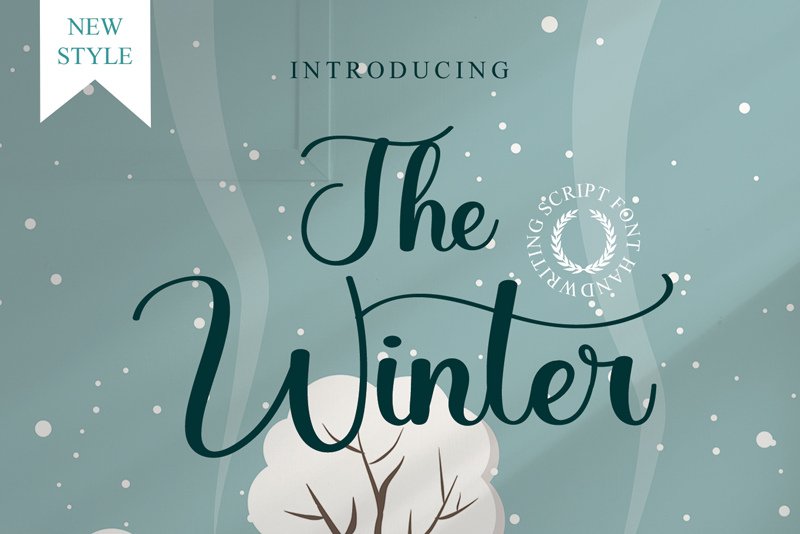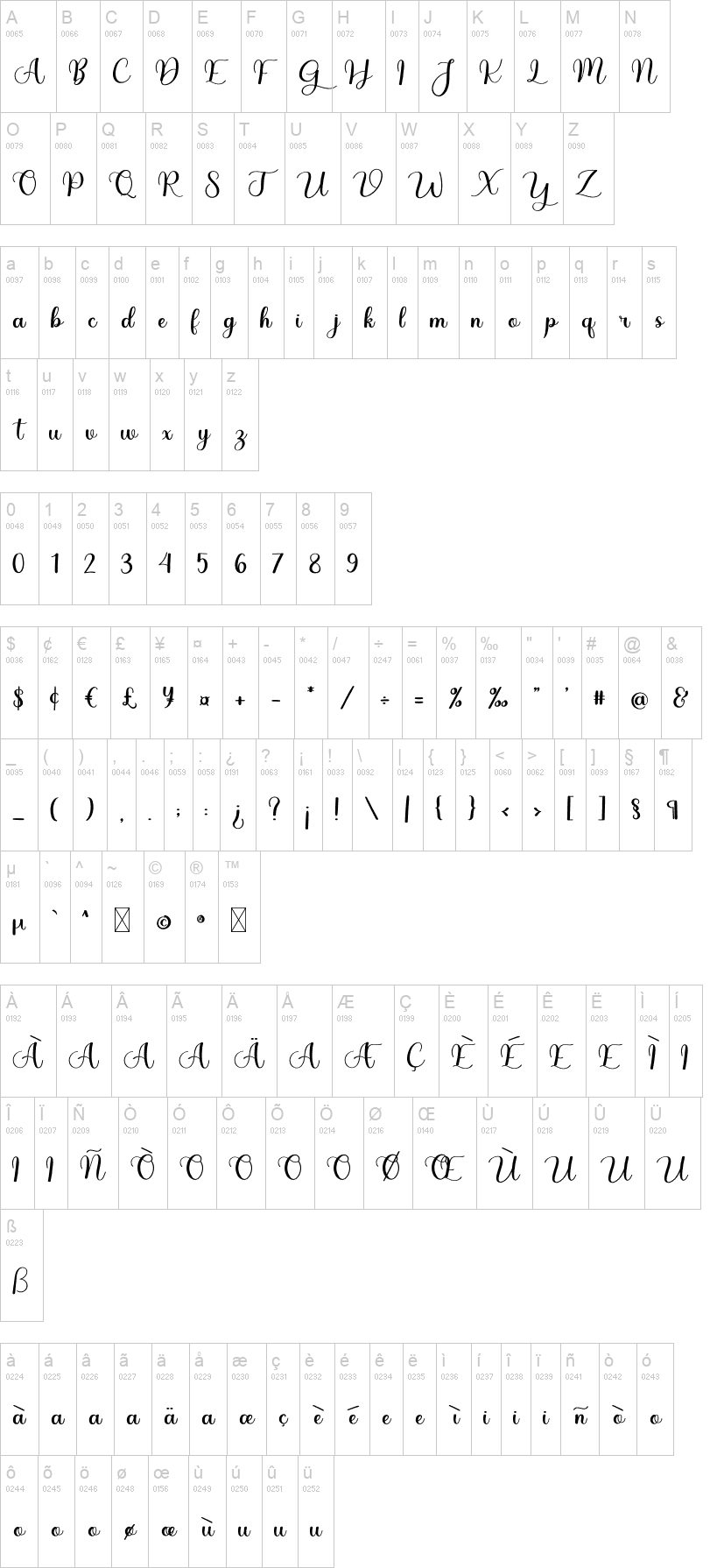
Note of the authorThe Winter is a sweet and cursive handwritten font. This gentle font will look gorgeous on a variety of design ideas. It will add a joyful and romantic touch to each of your projects!